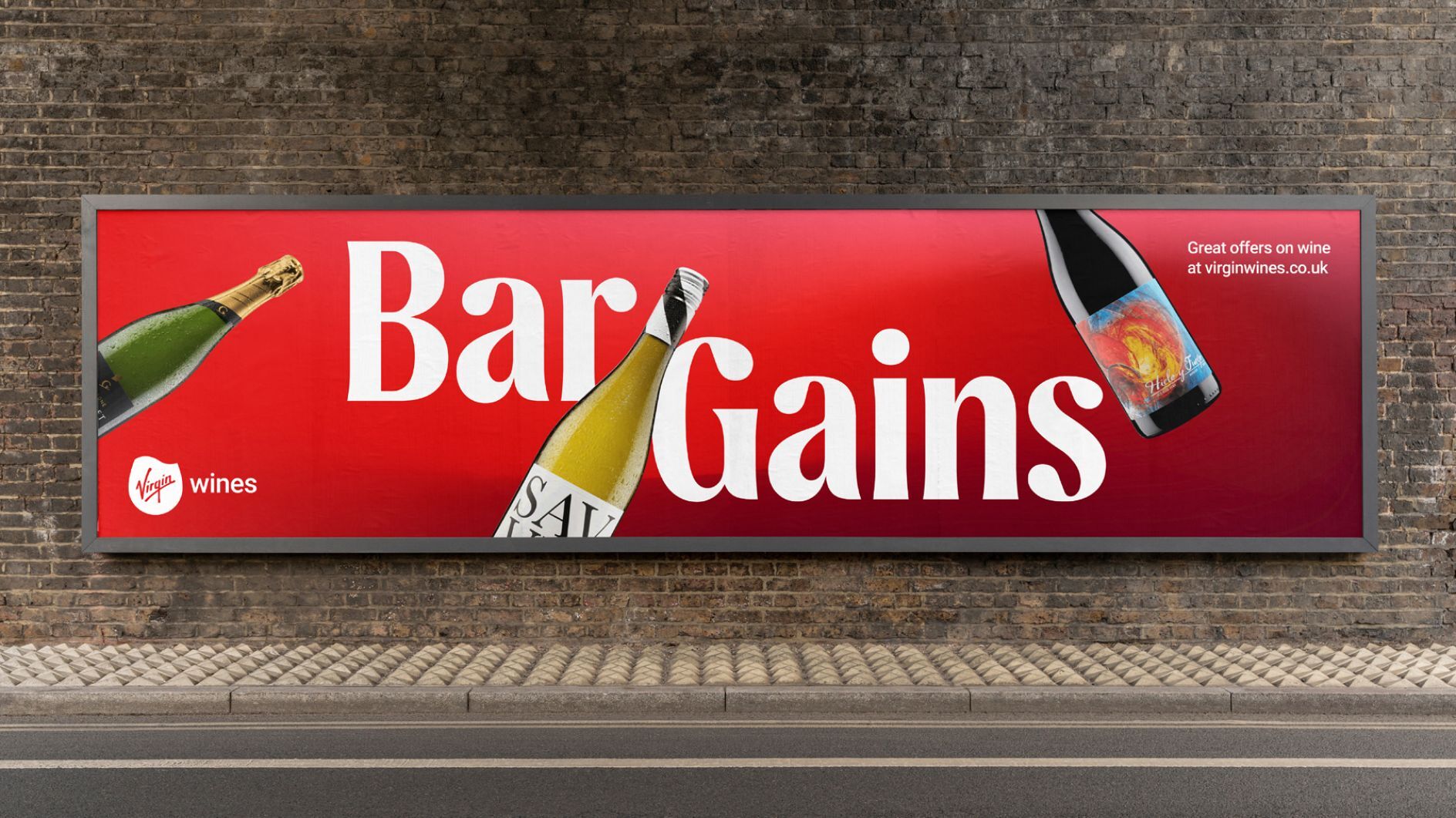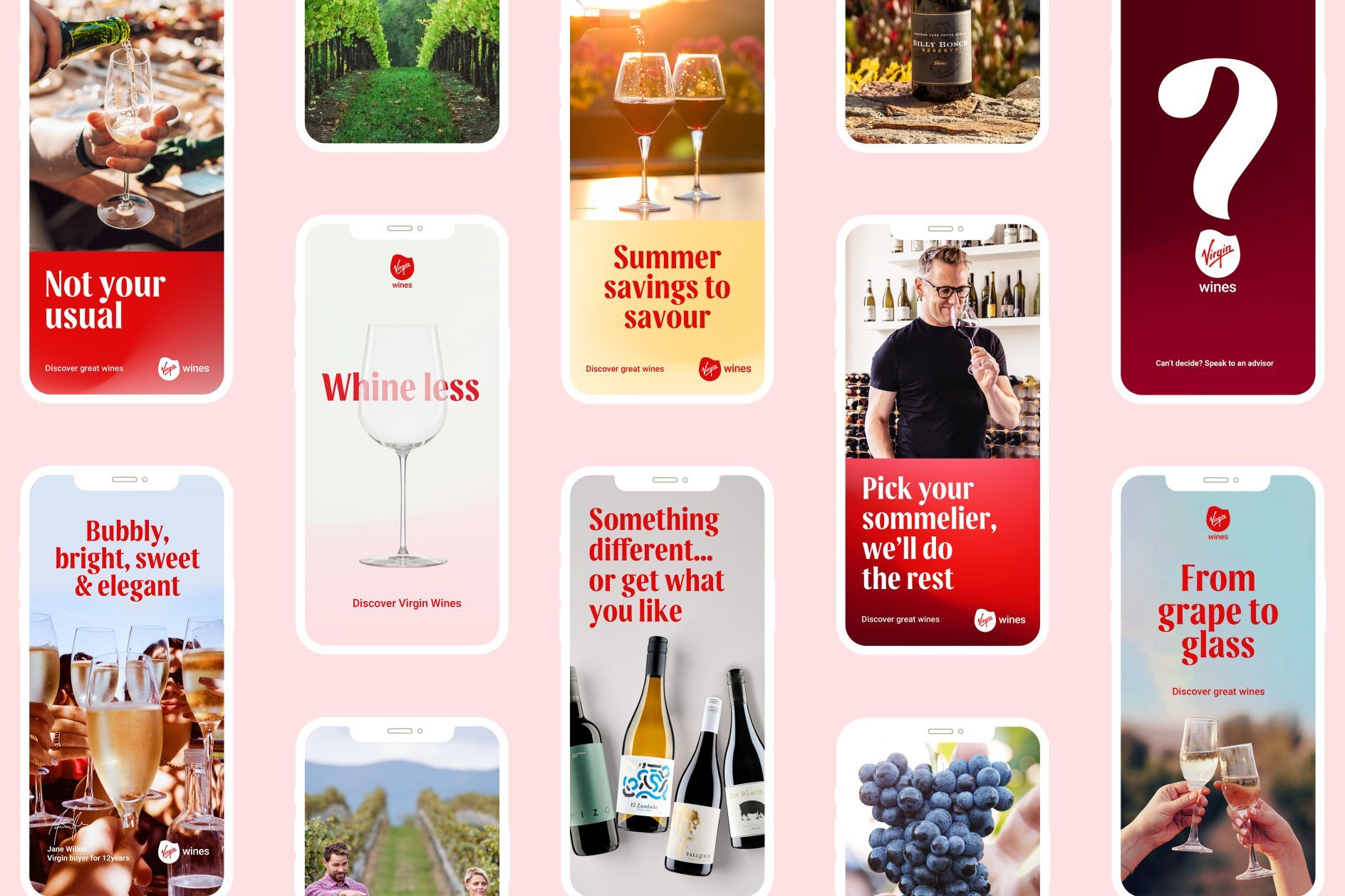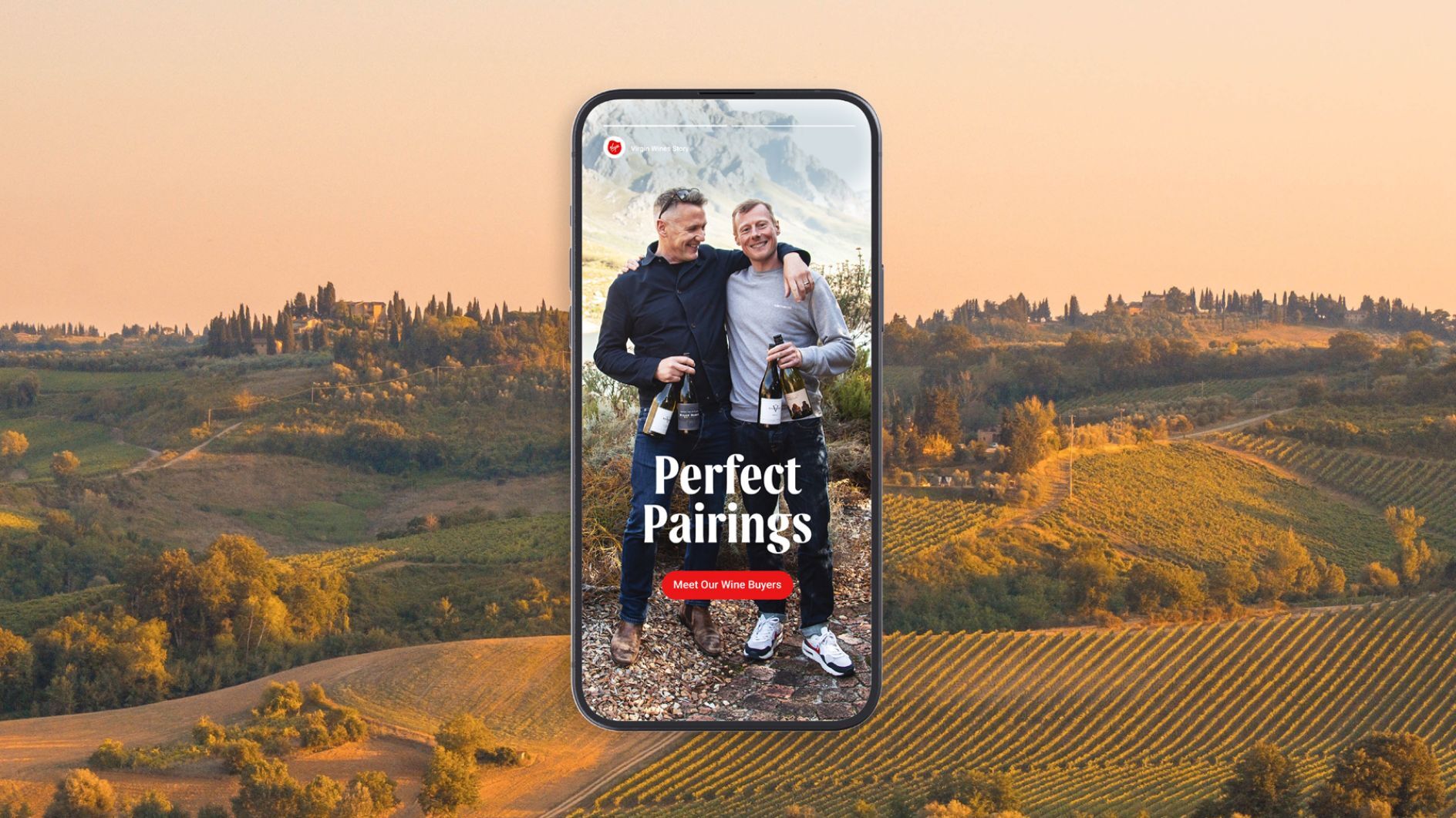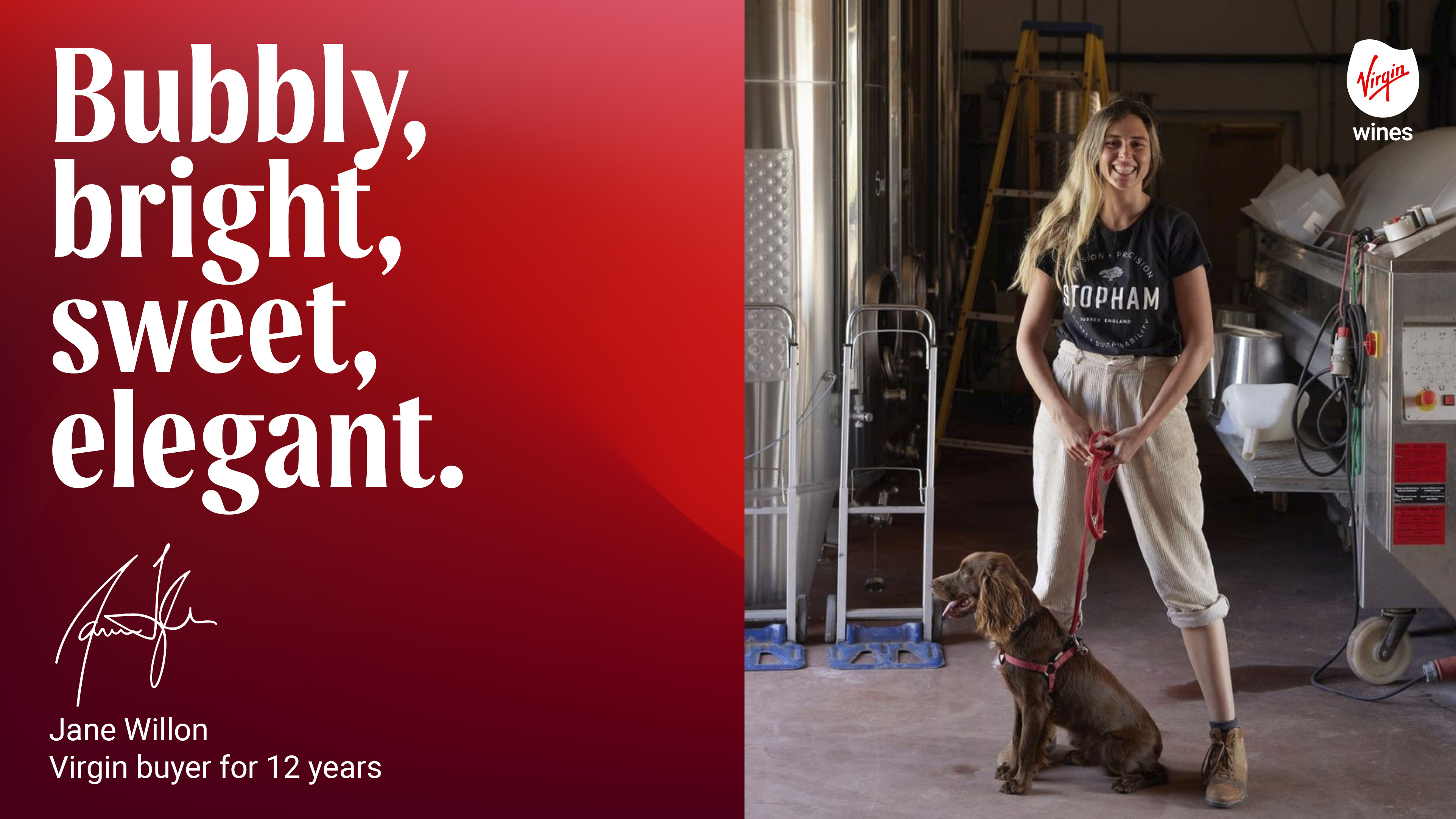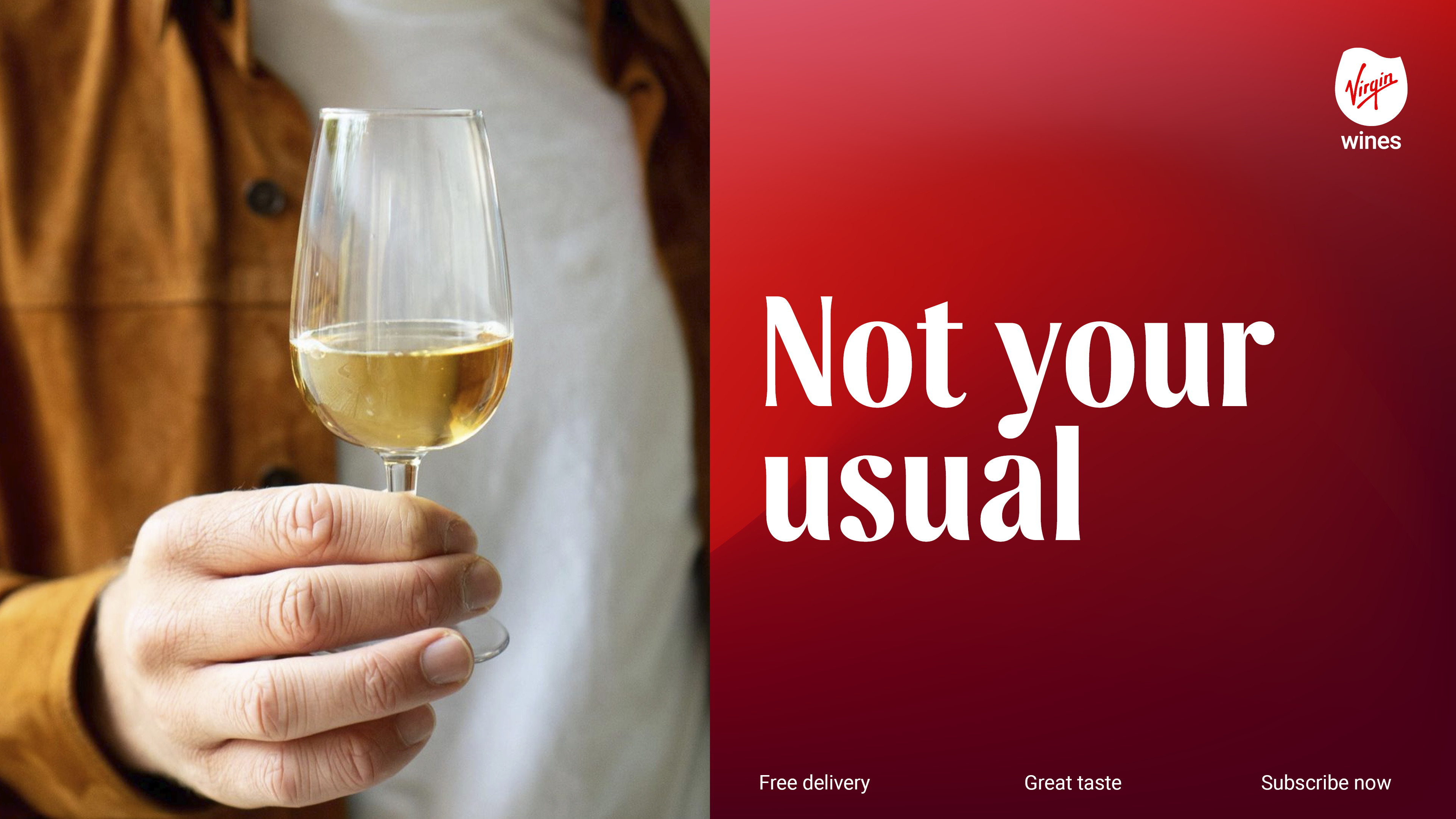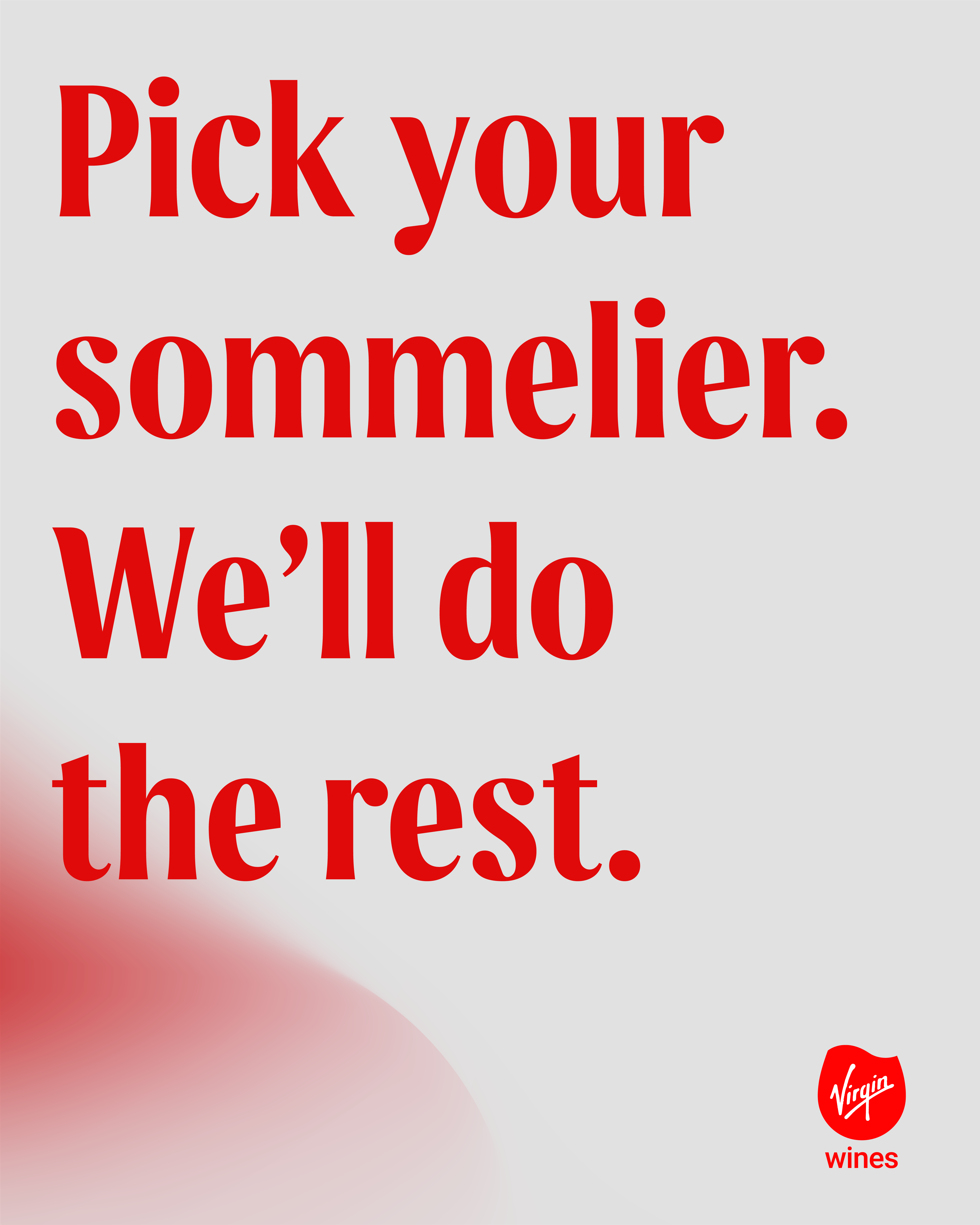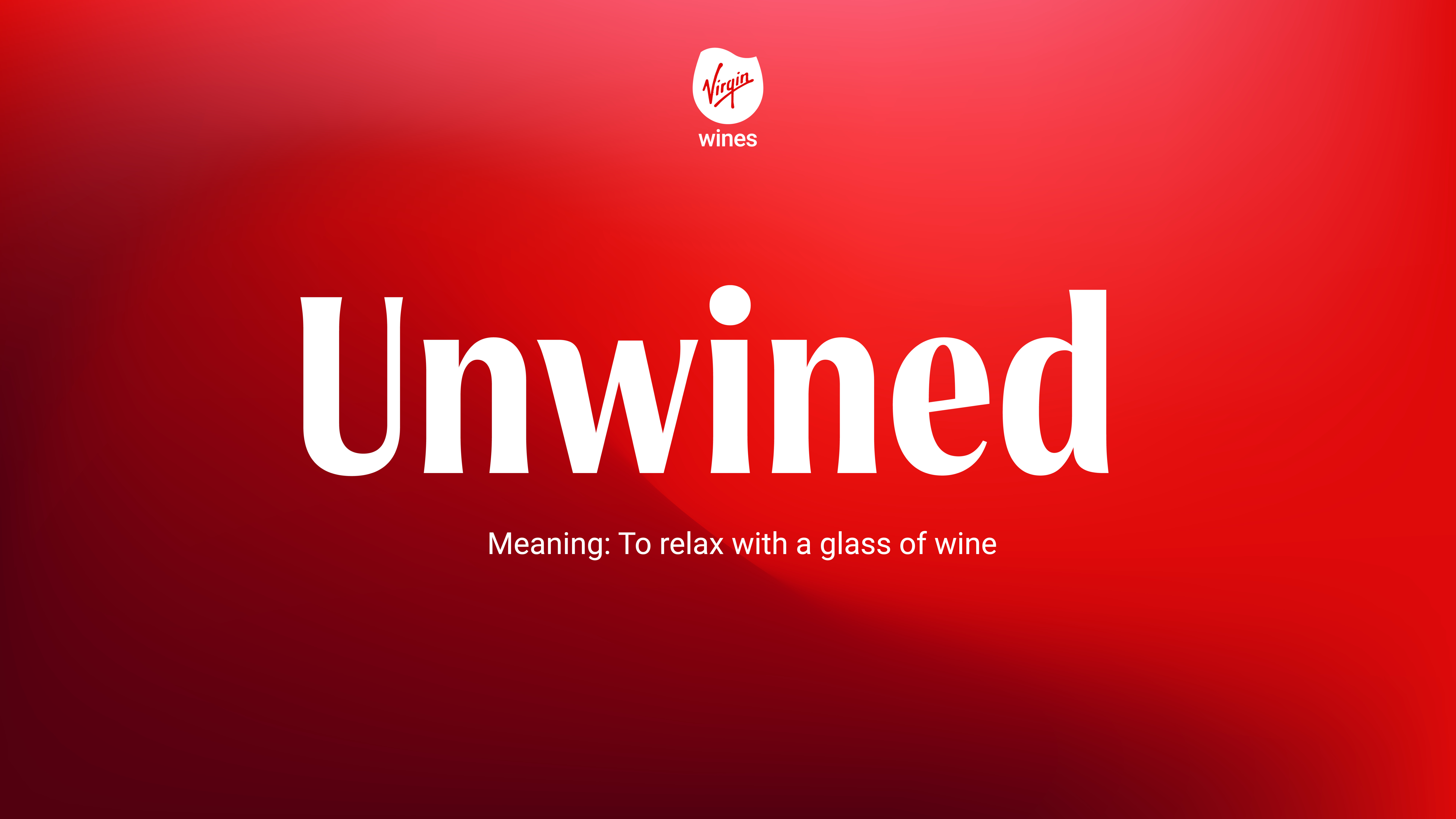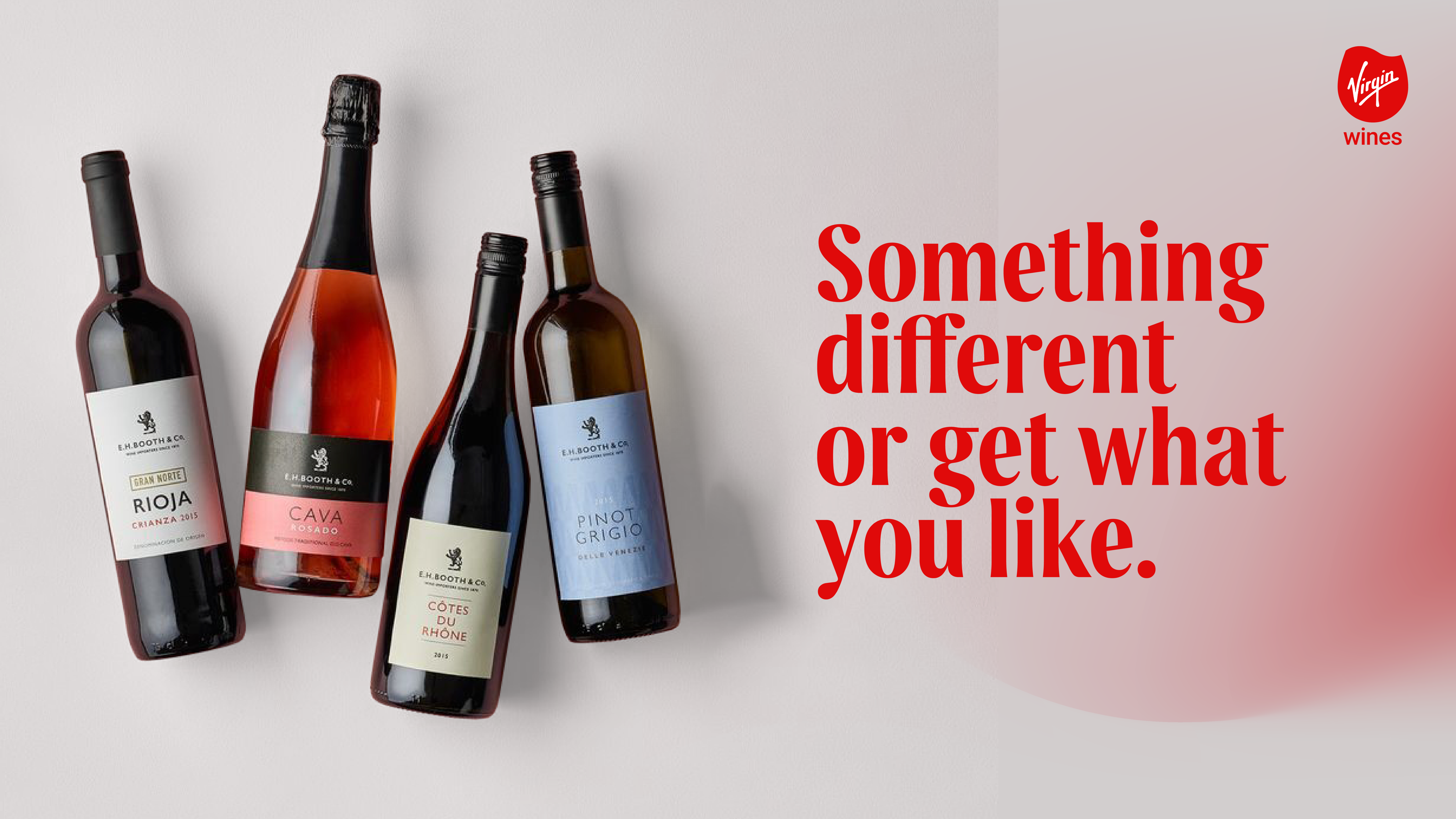
Joy
A Custom Font for Virgin Wines
Virgin Wines sought to distinguish its visual identity and typography from other online wine retailers. Working with Borne, we developed a high-contrast semi-serif that exudes joy and vibrancy, adding an eye-catching element to the brand's visual communication.
Virgin Wines Joy, Custom Font, 2024
Writing Systems
Latin
Language Support
Over 790 languages
Brand Consultancy
Borne
Joy Anatomy